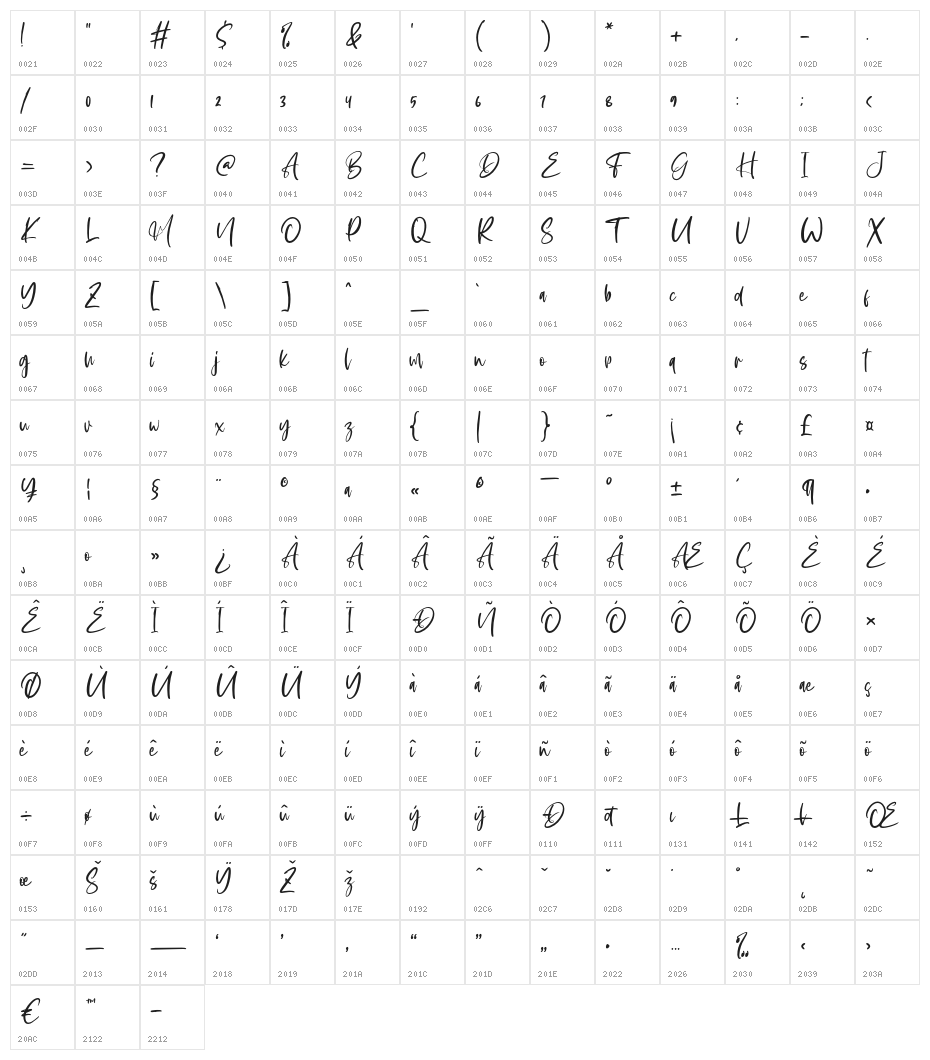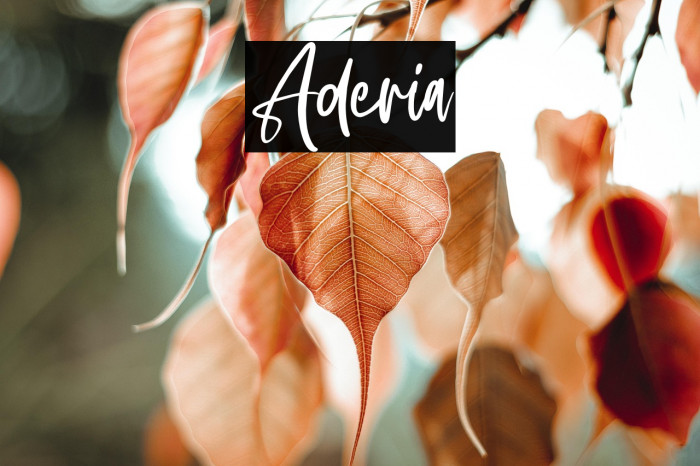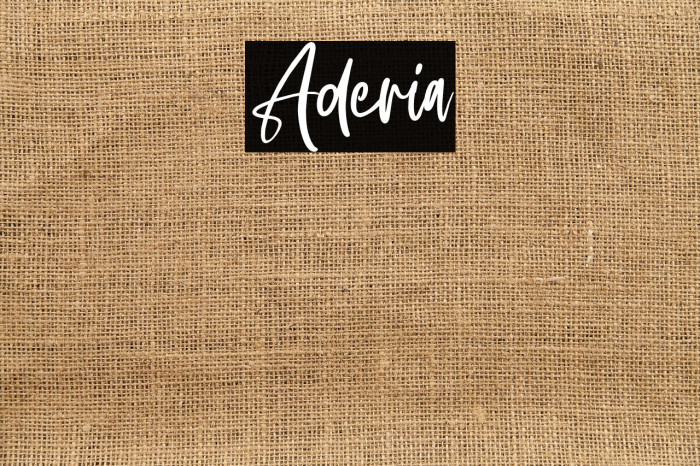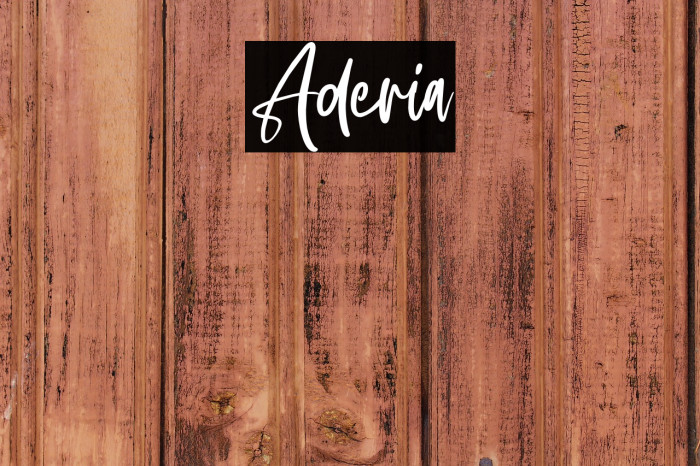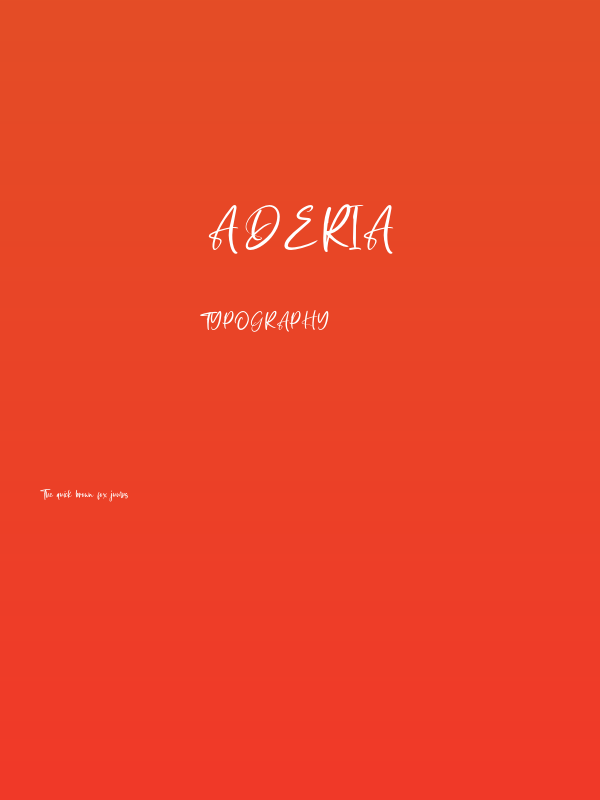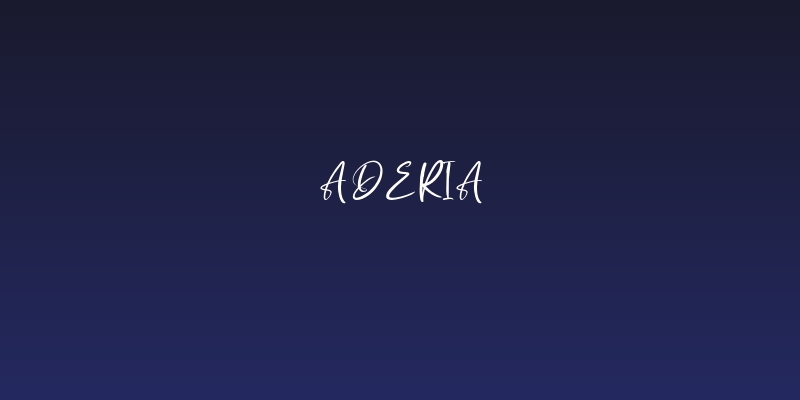
Aderia Font
Aderia Description
This font exudes a lively and expressive character with its handwritten style. The letters are fluid and dynamic, featuring a playful yet elegant script that captures attention. Each character is crafted with a sense of movement, giving the text a personal and artistic touch. The uppercase letters are bold and slightly larger, while the lowercase letters maintain a consistent flow. The numerals are clear and easy to read, complementing the overall aesthetic. Special characters are creatively integrated, maintaining the font's cohesive style. This font is perfect for projects that require a personal, artistic flair.
| Proposed Projects | Ideal for wedding invitations, greeting cards, personal branding, and artistic projects. |